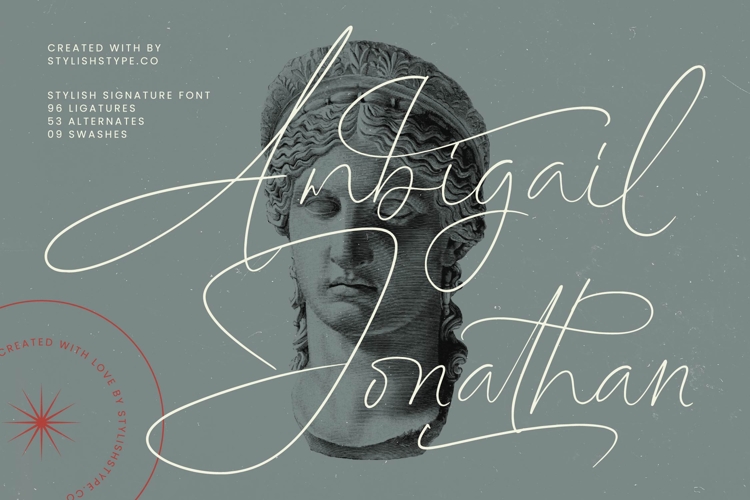
Ambigail Jonathan - Stylish Signature Font
Elevate your designs with unparalleled elegance and authentic handwritten charm. Introducing Font Ambigail Jonathan - Stylish Signature Font Script, a meticulously crafted typeface that captures the sophisticated essence of a genuine signature. Its flowing, graceful strokes and natural connectivity exude a professional aesthetic, making it the perfect choice for projects demanding a touch of refined artistry and uniqueness. This stylish signature font provides an instant upgrade to any visual communication. Unlock endless creative possibilities with extensive typographic features. Font Ambigail Jonathan - Stylish Signature Font Script comes fully loaded with 96 ligatures, 53 alternates, and 09 swashes, offering exceptional versatility and customization. These rich features empower designers to create truly bespoke looks, ensuring that every word feels handcrafted and unique. Achieve optimal visual harmony and dynamic rhythm across all your creative endeavors with this comprehensive script font. Bridge cultural divides and expand your global reach effortlessly. With its extensive multilingual support, Font Ambigail Jonathan - Stylish Signature Font Script adapts seamlessly across global markets, making it incredibly versatile for international projects. This crucial feature ensures that your message resonates universally, maintaining its elegance and impact in various languages. It's an indispensable asset for brands aiming for worldwide recognition and consistent identity. Discover the ideal typeface for your most prestigious ventures. Font Ambigail Jonathan - Stylish Signature Font Script is perfect for branding, exquisite wedding invitations, high-end packaging design, sophisticated editorial layouts, and impactful branding. Its distinctive and memorable style ensures your projects stand out, imbuing them with a sense of prestige and bespoke craftsmanship. Choose this font to convey exclusivity and a compelling narrative.